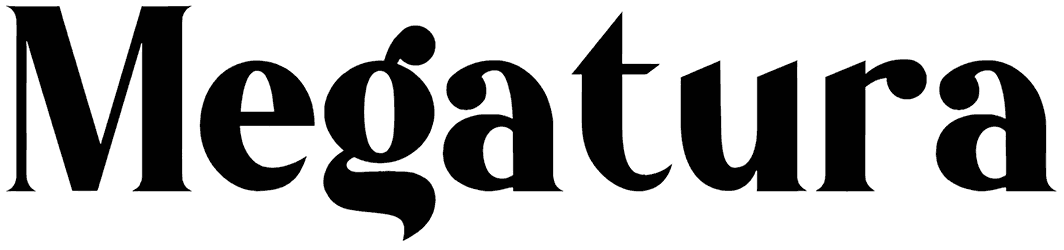
Megatura Font
Megatura is an incredibly versatile serif font that is guaranteed to add a dramatic touch to graphic content such as logos, publications, news headers, social media posts, and flyers. Aside from not fully supporting numbers, it provides the best outcome by presenting a sense of professionalism, respect, formality, and confidence.